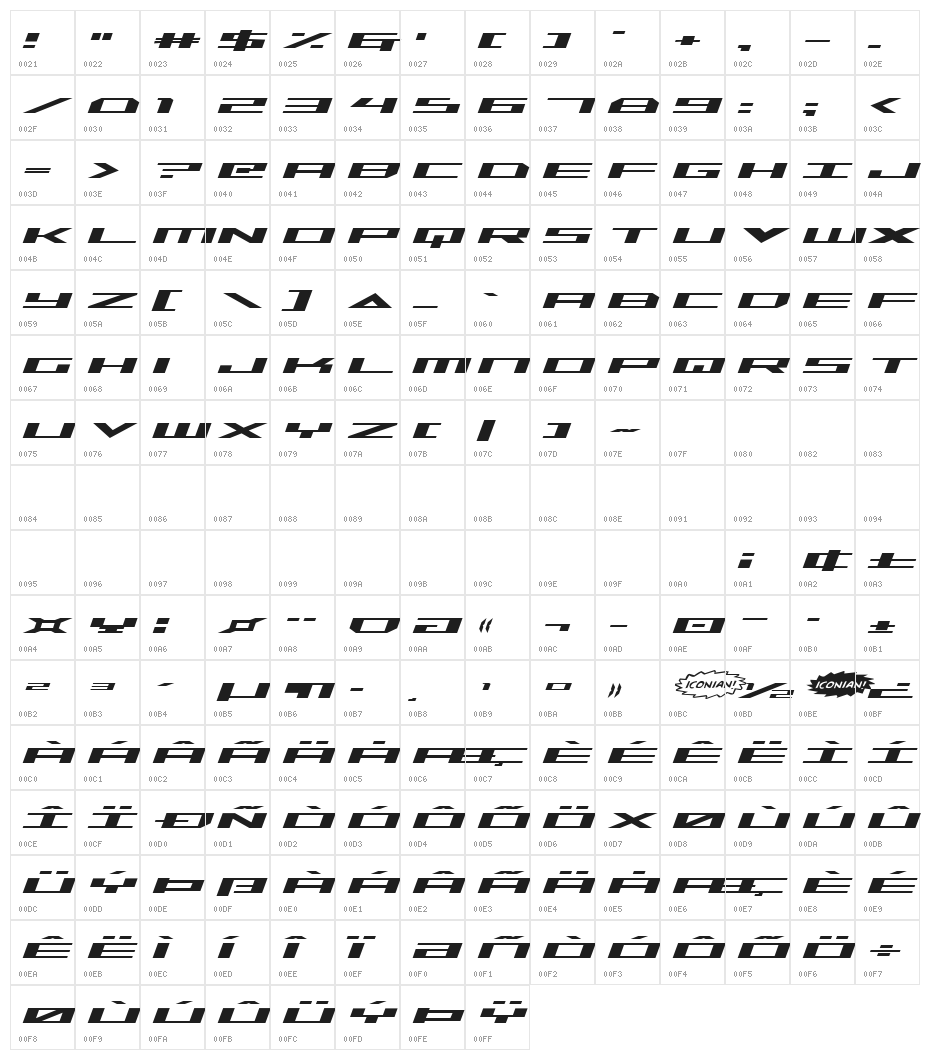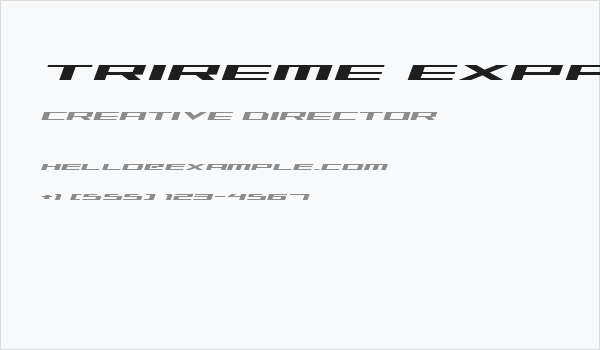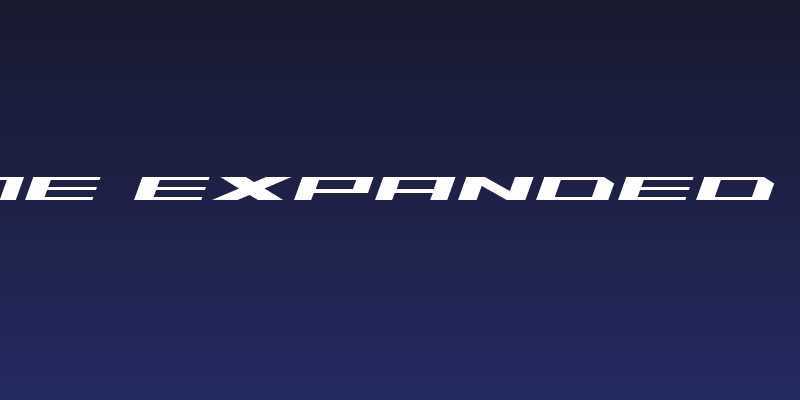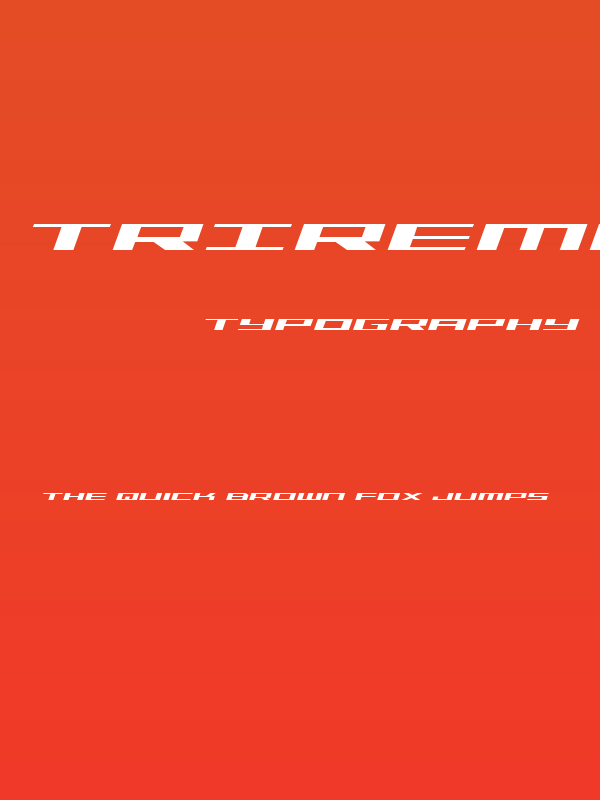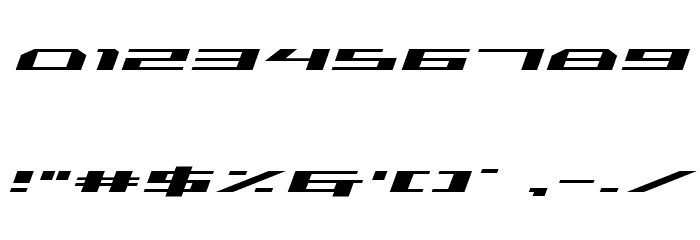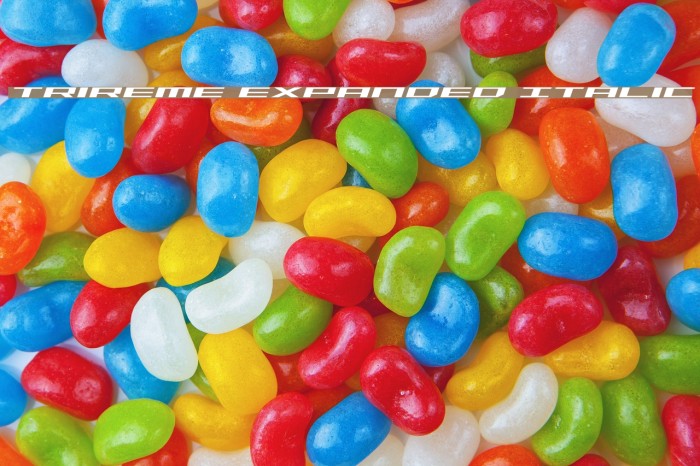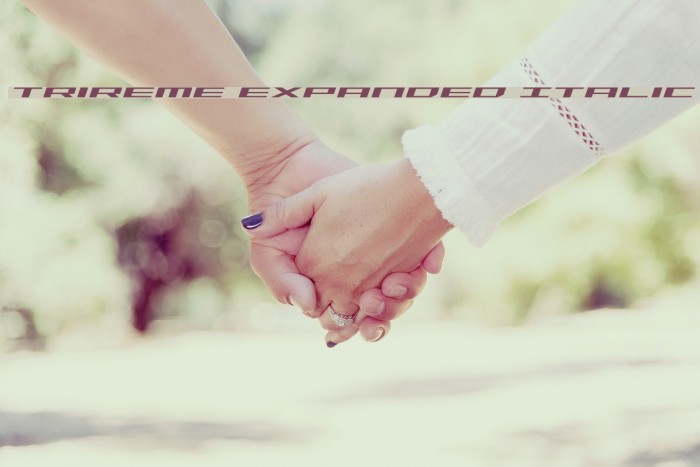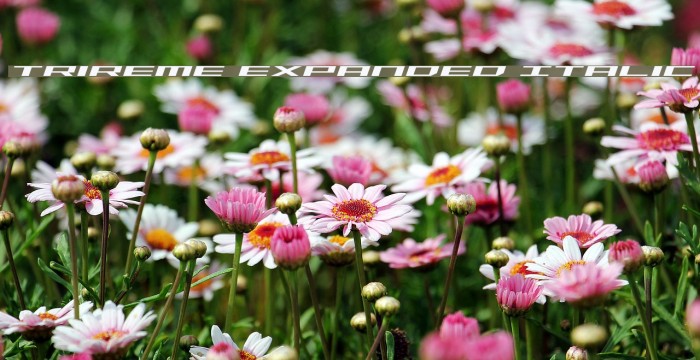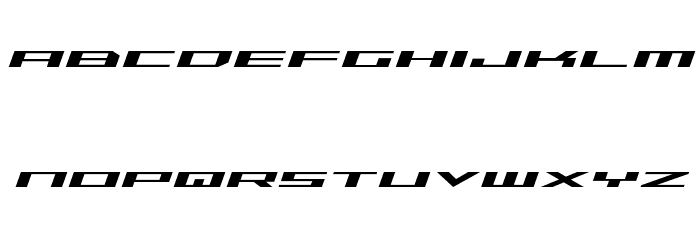
Trireme Expanded Italic Font
Trireme Expanded Italic Description
This font features a bold and dynamic design with an italicized slant, giving it a sense of motion and energy. The characters are expanded, providing a wide stance that enhances readability while maintaining a unique style. The geometric shapes and sharp angles contribute to a futuristic and modern aesthetic, making it suitable for projects that require a strong visual impact. The consistent stroke width across characters ensures uniformity, while the expanded width allows for a spacious and open feel. This font is ideal for creating eye-catching headlines, logos, and posters where a bold statement is needed.
| Proposed Projects | Ideal for futuristic branding, tech-related logos, dynamic posters, and eye-catching headlines. |